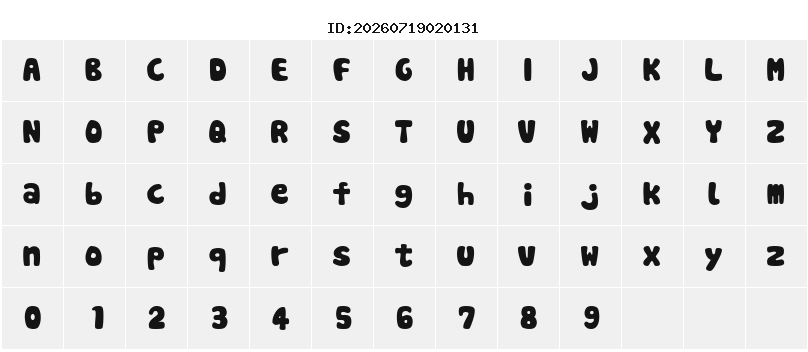
About Cookies.ttf
Cookies.ttf is a modern, elegant sans-serif font designed for ultimate readability and visual harmony. Perfect for branding, headlines, web design, and print materials.